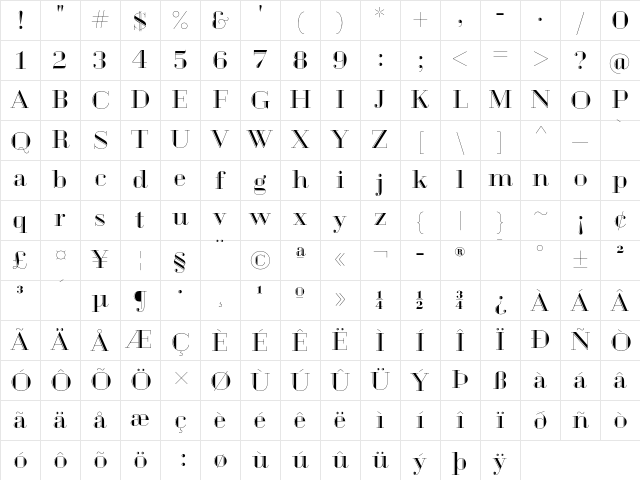
Geotica Two is built around its visual character rather than neutral utility - its distinctive forms are designed to make an impression at display sizes.
Font Pairing: Pair with a clean neutral sans-serif for body copy to let Geotica Two's character lead without overwhelming the composition.
Pro Tip: Use Geotica Two exclusively at display sizes - it was designed to be seen, not read at length. Let a neutral companion handle body copy.